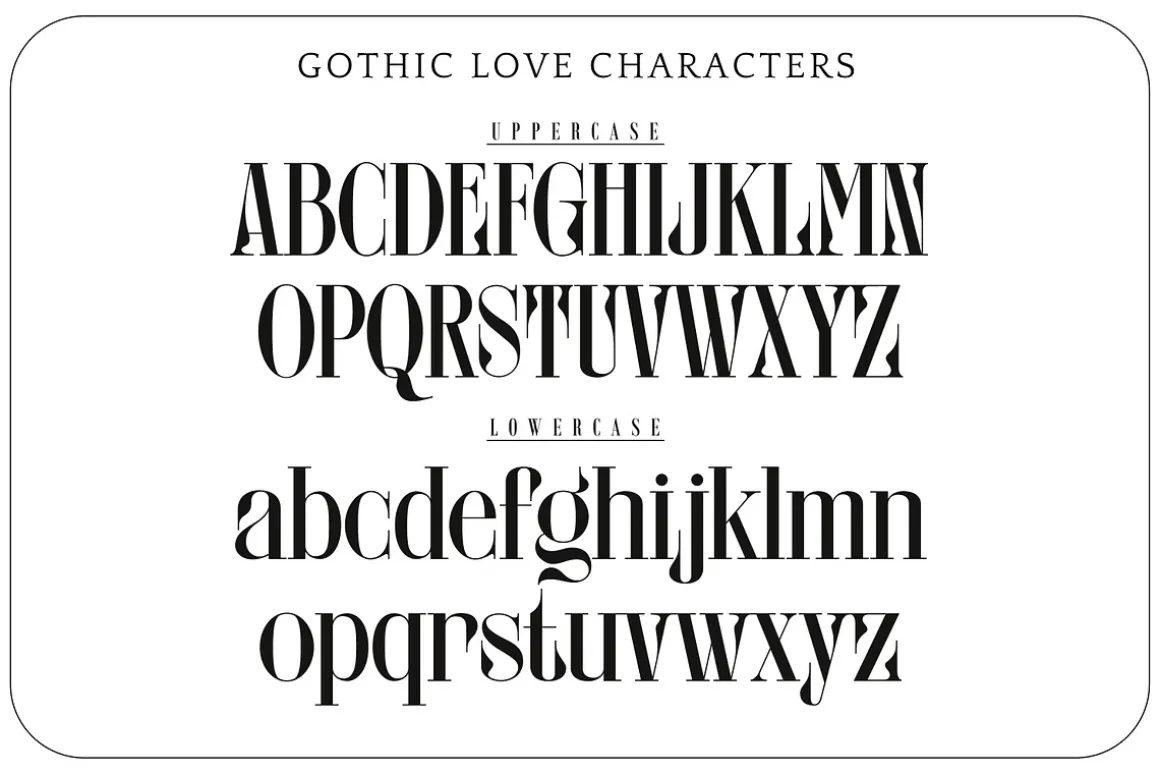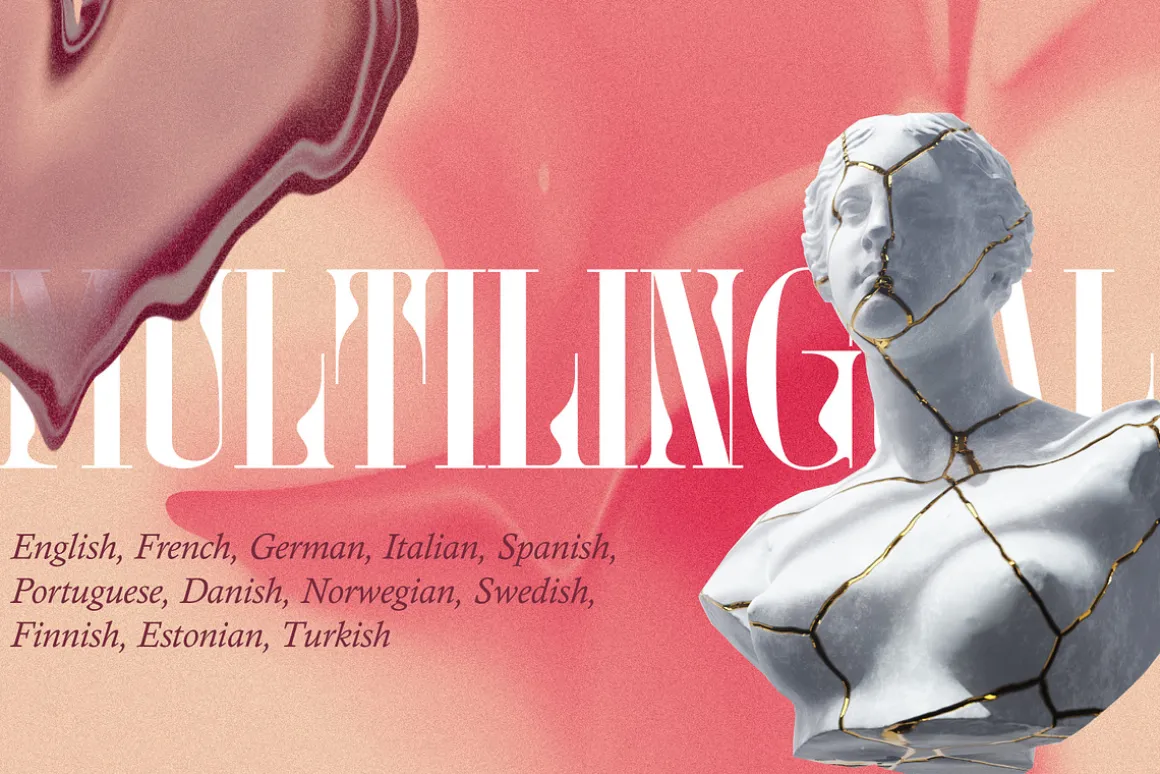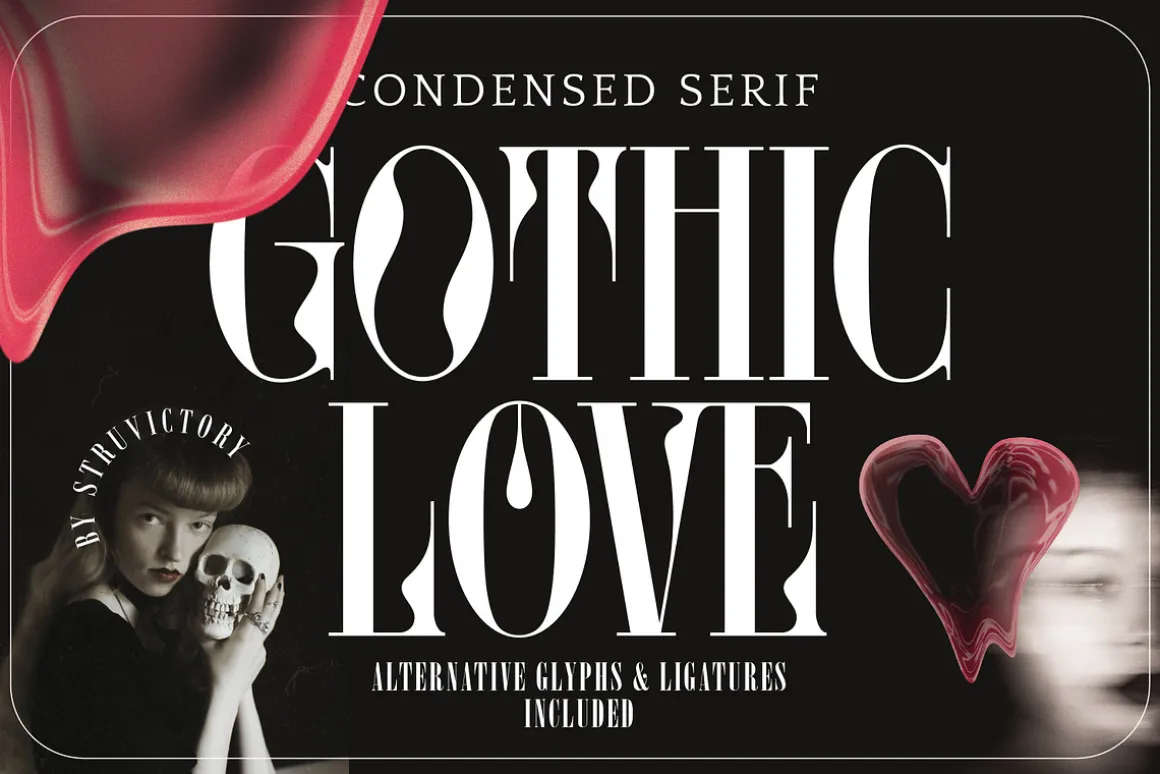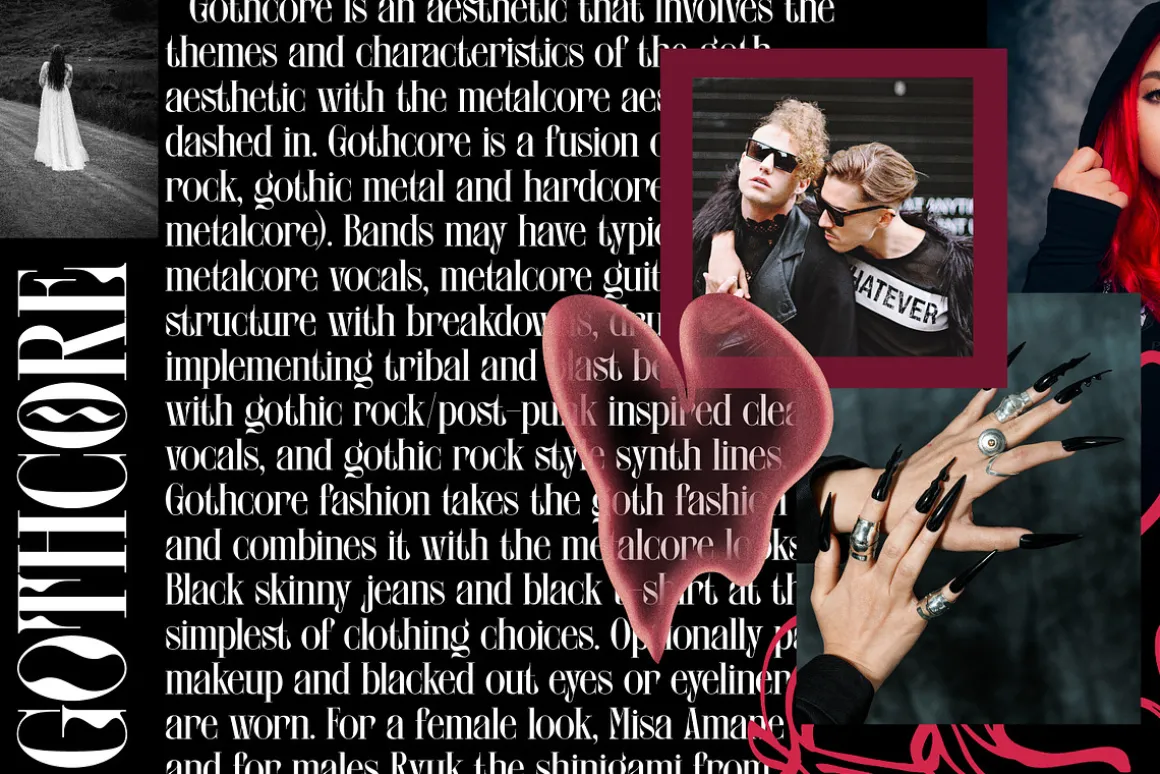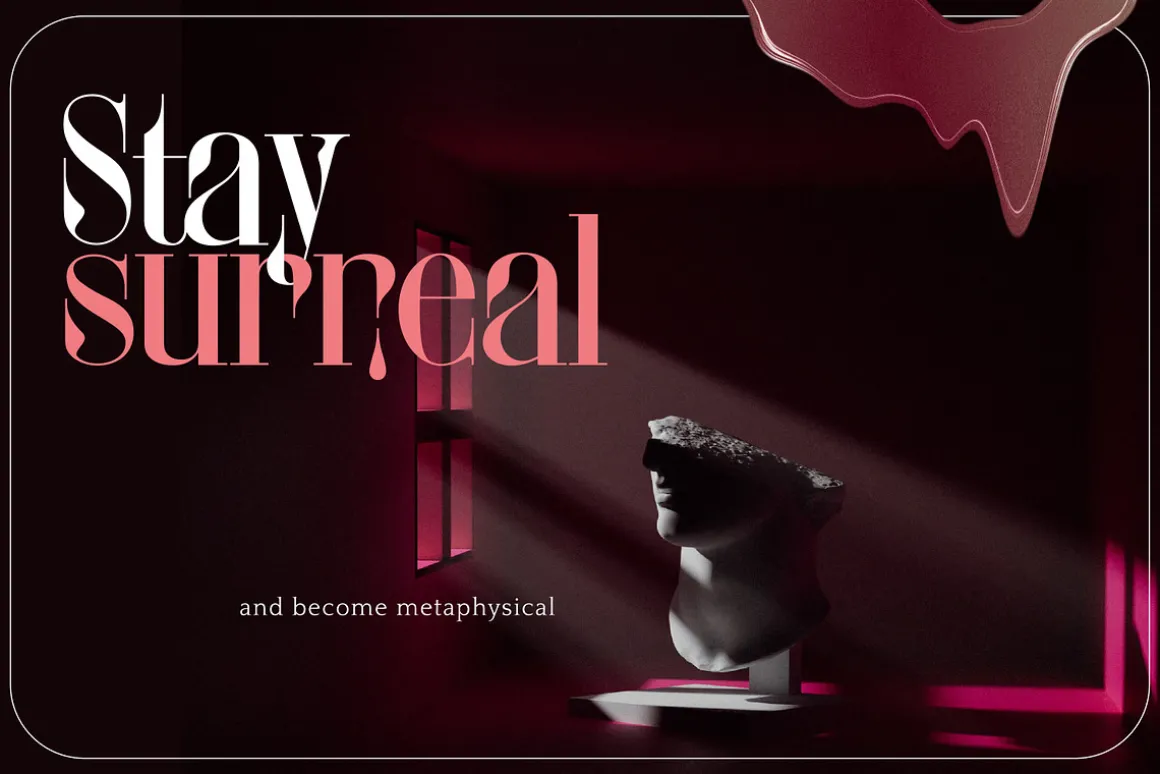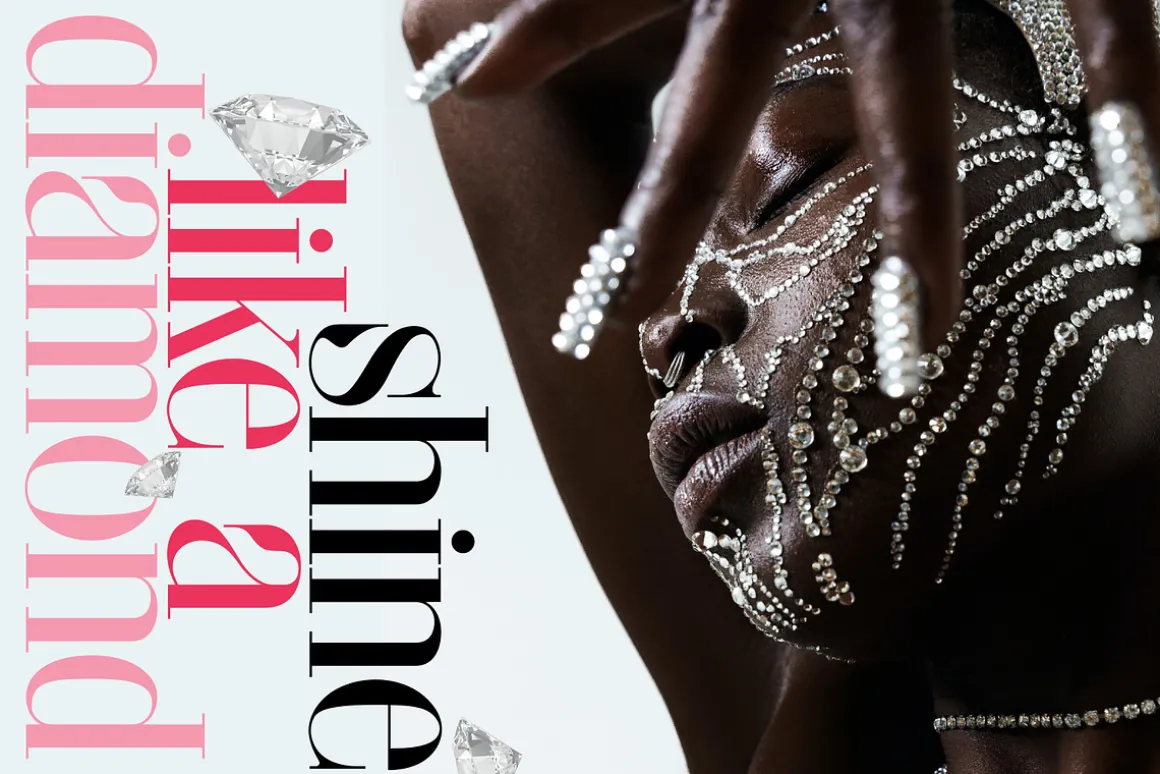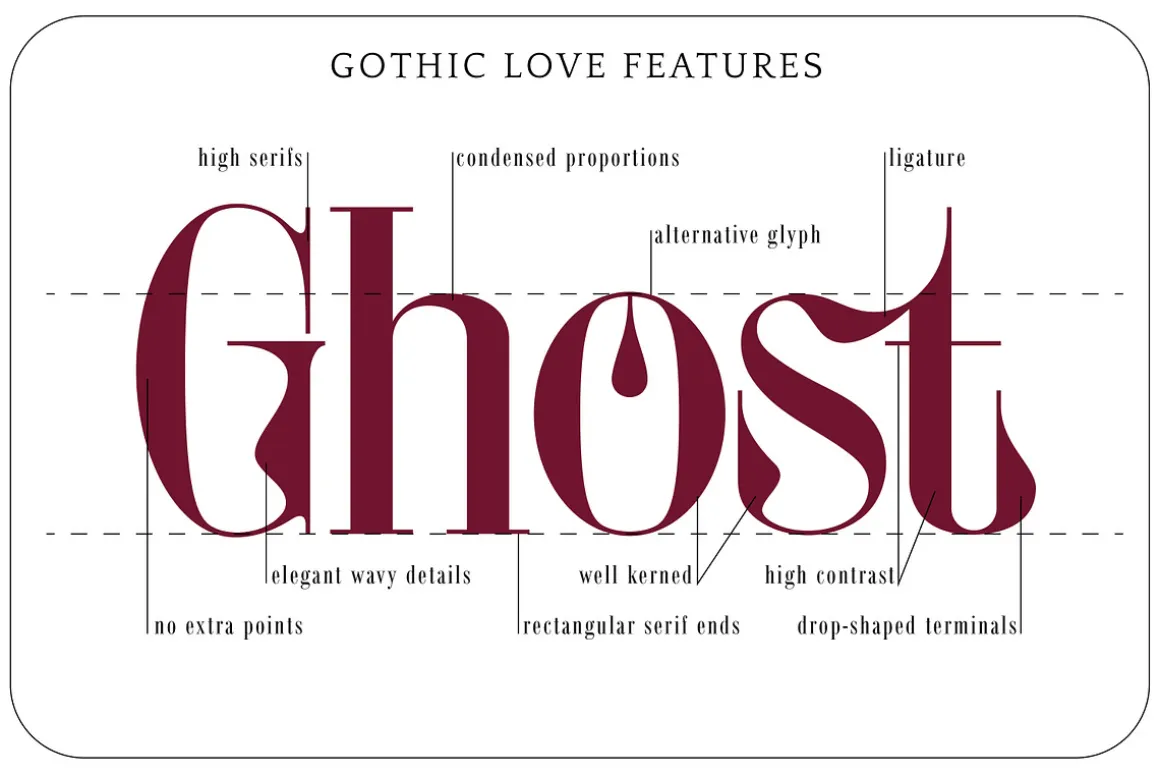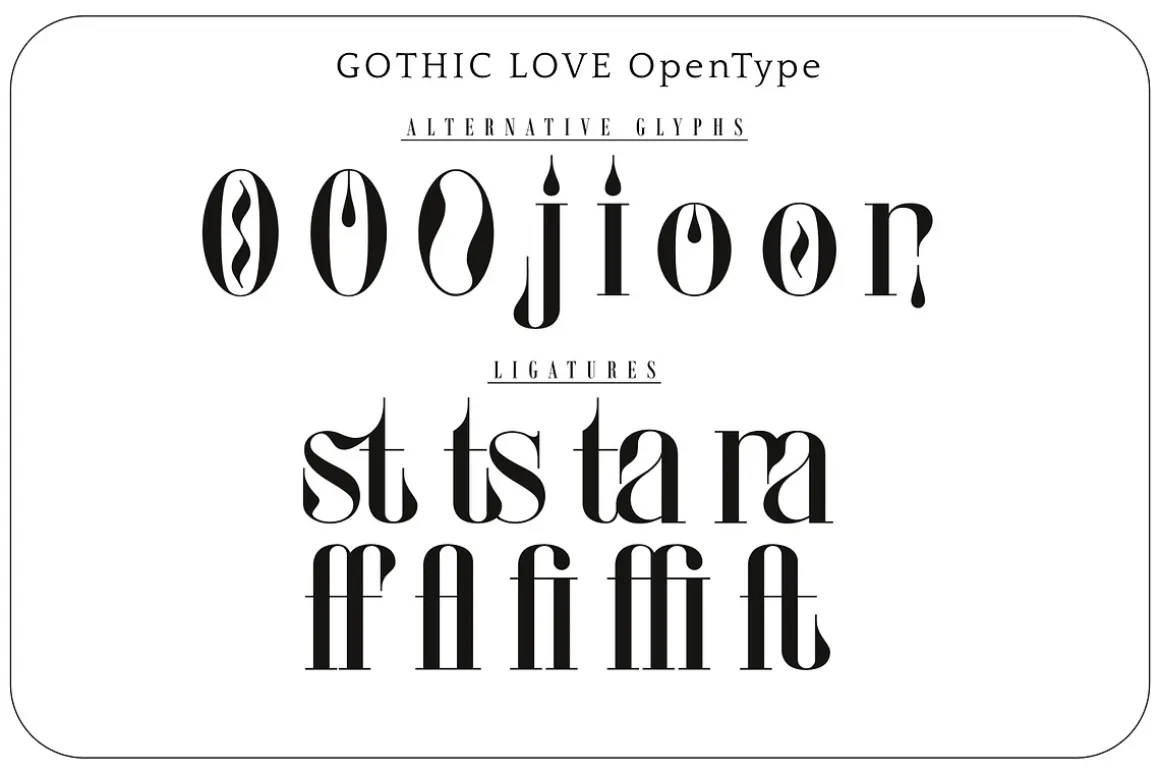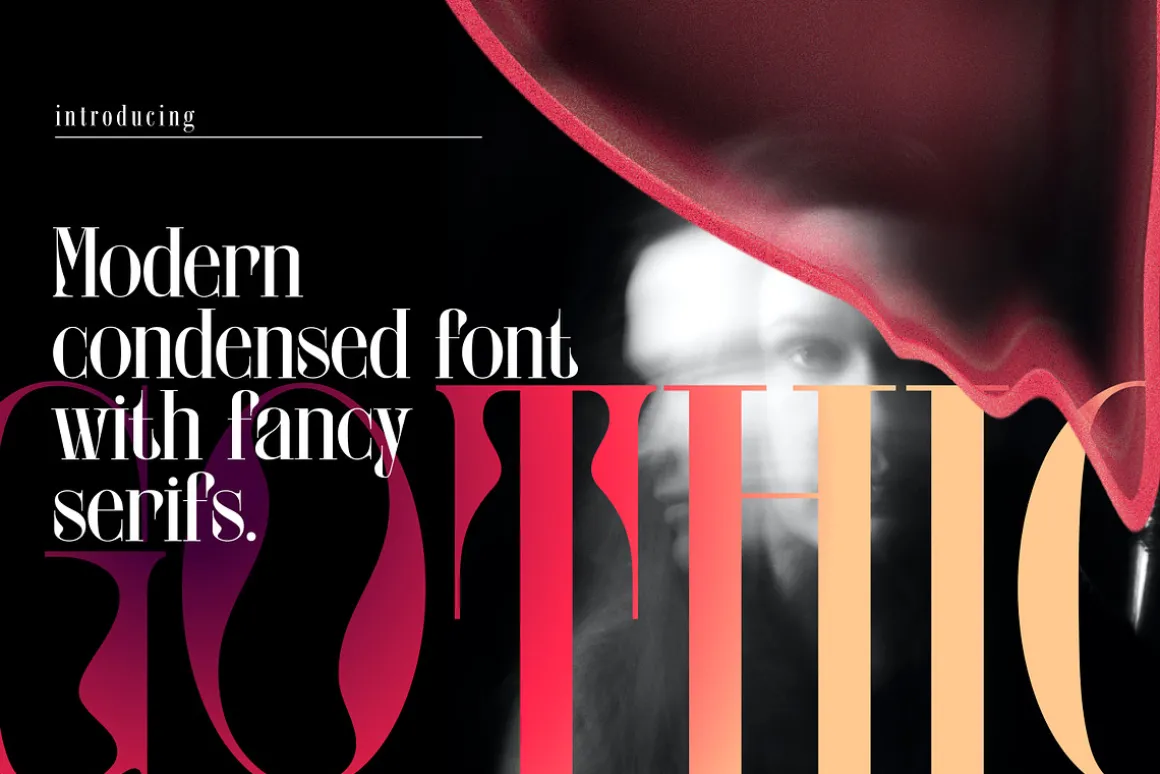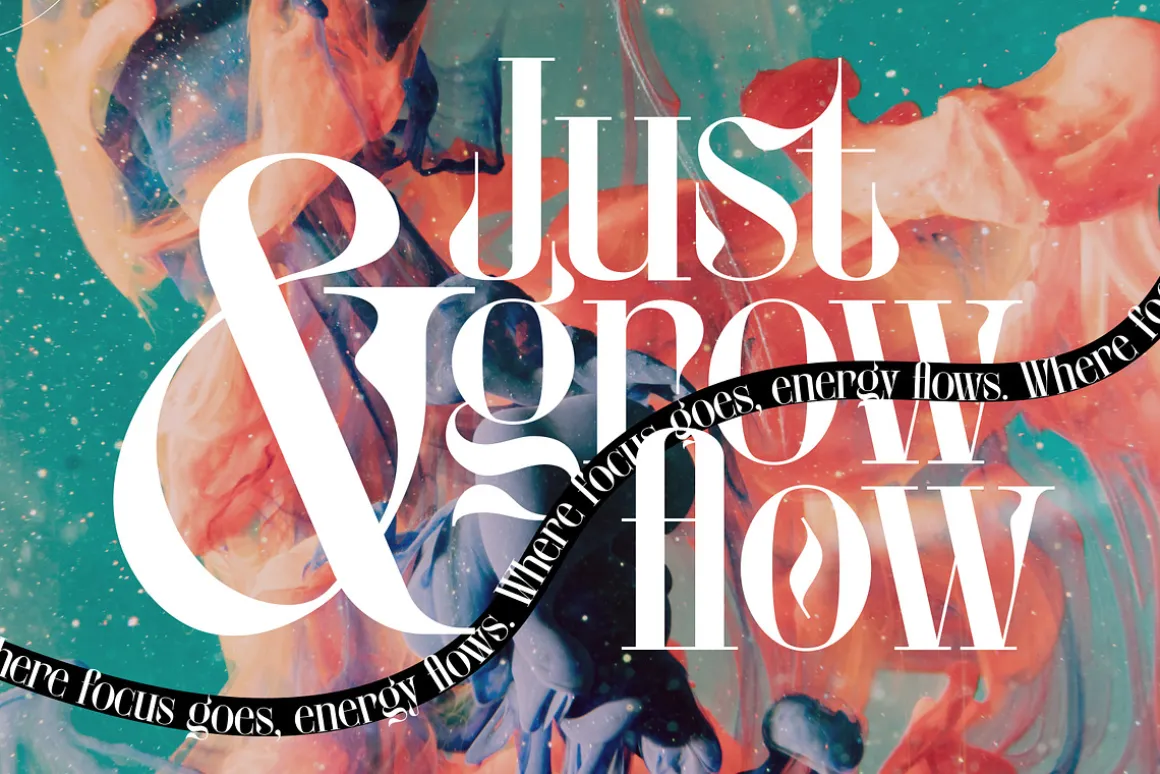
Gothic Love is a modern serif font with elegant wavy details. The font is created in condensed proportions with high serifs. The font is suitable for the design on the theme of fashion, feminine branding, mysticism, gothcore. The font will add elegance and boldness to your headlines, prints, typographic compositions and logos.
Gothic Love has extensive language support, it includes English, French, German, Italian, Spanish, Portuguese, Danish, Norwegian, Swedish, Finnish, Estonian, Turkish. Need to know if your language is supported? Type any words in the text box below and see if all characters you need are there.